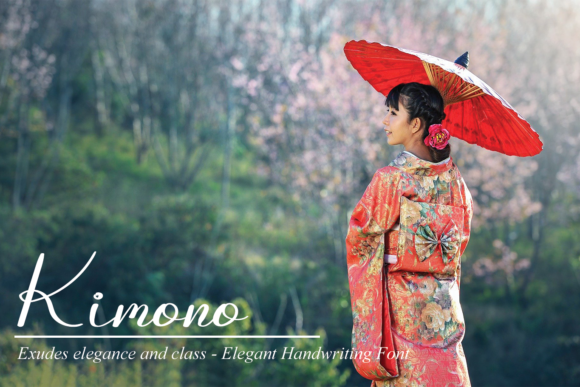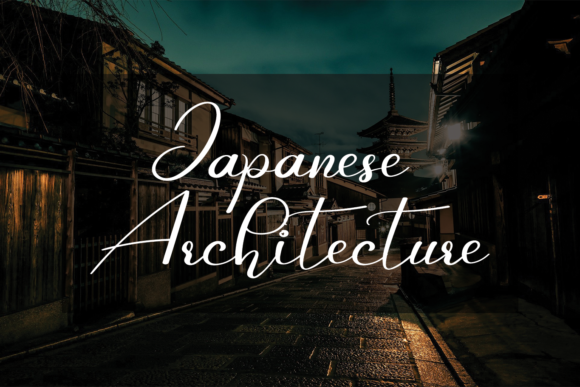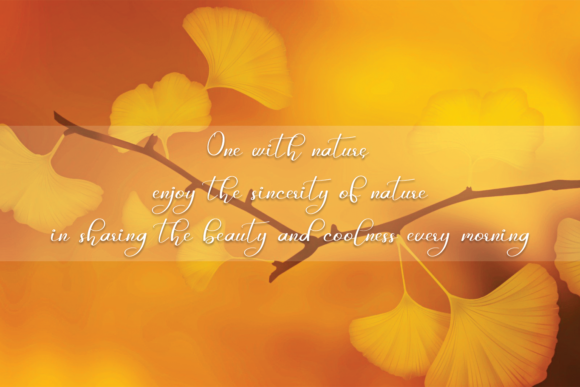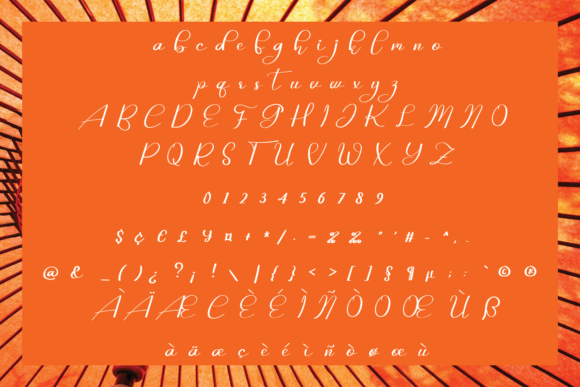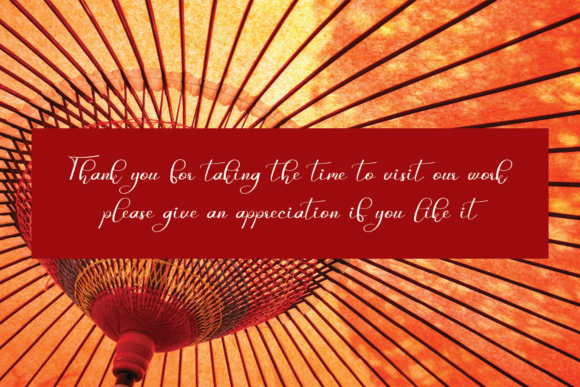
The Elegance of Geisha Font: A Designer’s Delight
I’ll never forget the time I was working on a project for a high-end client, tasked with creating a sophisticated brand identity that exuded luxury and refinement. As I scrolled through my font library, searching for the perfect match, I stumbled upon Geisha Font. Its elegant script and contemporary atmosphere immediately caught my eye, and I knew I had found the one. In this article, I’ll share my experience with Geisha Font, its features, and how to make the most of it in your designs.
A Personal Review of Geisha Font
As a designer, I’m always on the lookout for fonts that can elevate my projects and make them stand out. Geisha Font has become a staple in my library, and here’s why:
- ✨ Elegant and refined: Geisha Font boasts a timeless classic calligraphy style that adds a touch of sophistication to any project.
- ✅ Balanced and varied: The font’s stroke width is perfectly balanced, not too thin and not too thick, making it versatile for various design applications.
- ✨ Contemporary atmosphere: Despite being inspired by classic calligraphy, Geisha Font has a modern twist that makes it perfect for contemporary designs.
However, no font is perfect, and Geisha Font has a few quirks:
- 🤔 Limited use in body text: Due to its elegant and cursive nature, Geisha Font might not be the best choice for lengthy body text. It’s better suited for headings, titles, and short paragraphs.
- ⚠️ Some glyphs may require manual adjustment: While Geisha Font has a wide range of glyphs and OpenType features, some may require manual adjustment to fit perfectly in your design.
The Story Behind Geisha Font
Geisha Font was designed with the goal of creating a elegant script font that combines classic calligraphy with a modern twist. Inspired by traditional Japanese geisha culture, the font’s creator aimed to capture the essence of refinement and poise. The result is a versatile font that can be used in a variety of design applications, from luxury branding to creative projects.
| Font Name | Geisha Font |
| What is Geisha Font inspired by? | Geisha Font is inspired by timeless classic calligraphy and traditional Japanese geisha culture. |
| Is Geisha Font suitable for body text? | While Geisha Font can be used for short paragraphs, it’s not ideal for lengthy body text due to its elegant and cursive nature. |
| Does Geisha Font have OpenType features? | Yes, Geisha Font features a range of OpenType features, including ligatures, stylistic alternates, and swashes. |